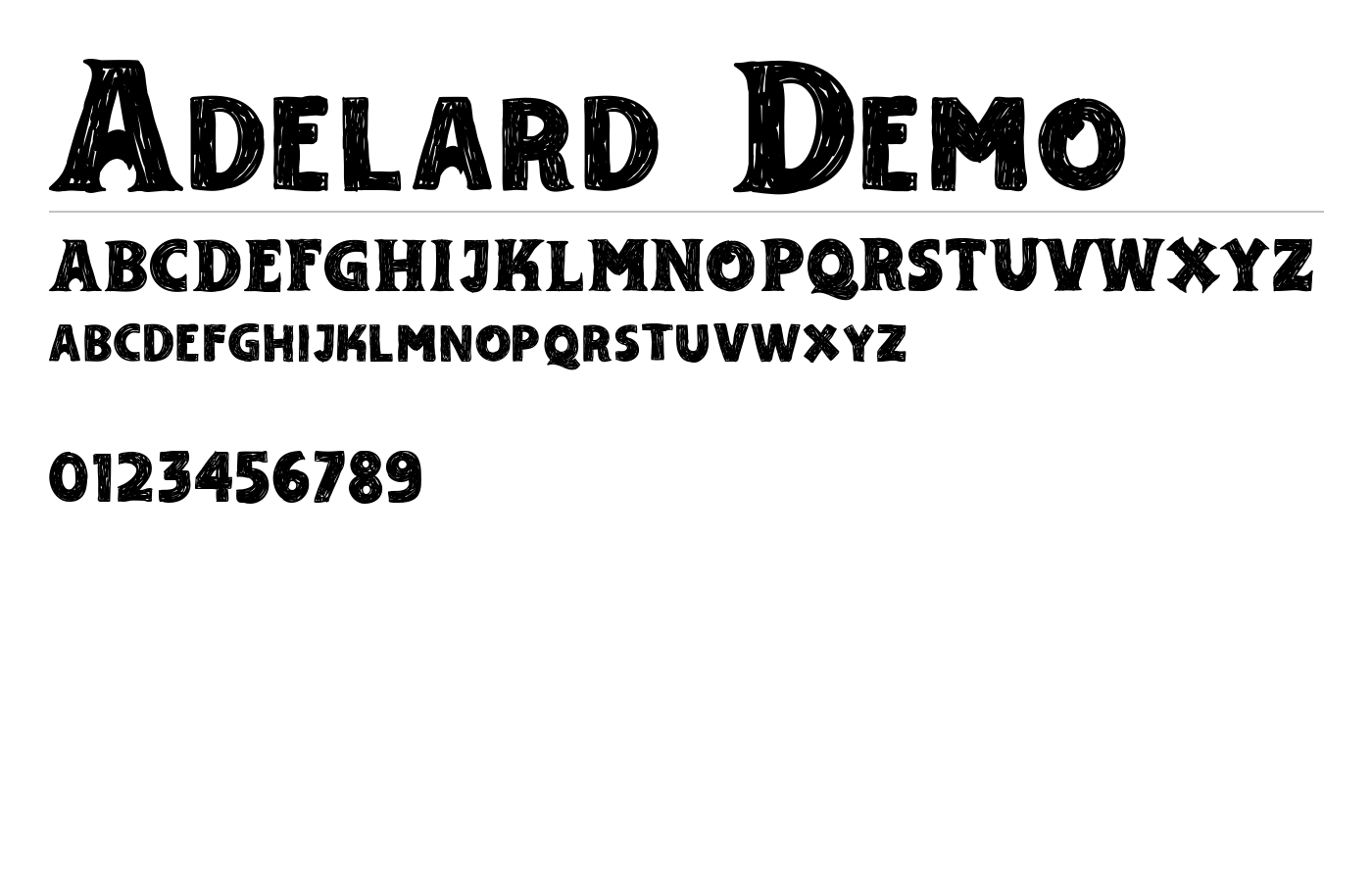
Adelard Demo is a bold, decorative serif font with a hand-drawn, textured style that brings a playful yet strong character to its letterforms. Its wide proportions, distinctive rough edges, and artistic irregularities make it ideal for creative headlines, posters, or branding that aims to stand out with a vintage, handcrafted feel. This font works best for designs seeking a bold, expressive personality that captures attention and adds unique visual interest.
Adelard Demo Font
About Adelard Demo Font
| Font family | Adelard Demo Font |
| Designer | GRSMN Studio |